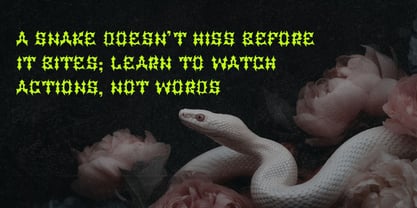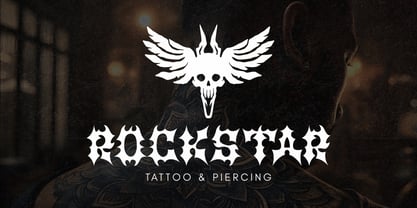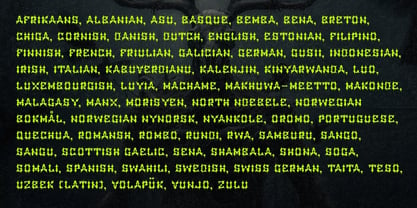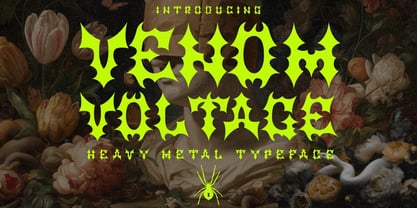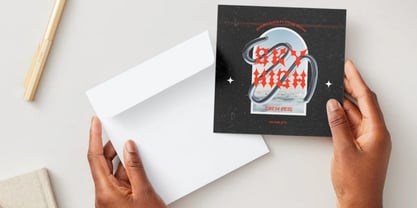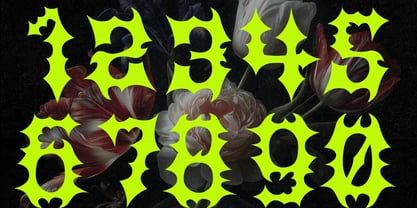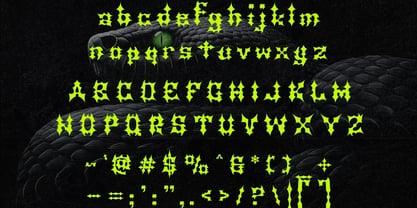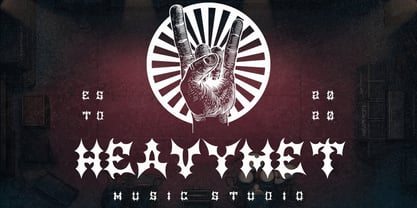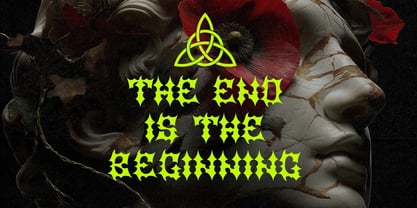
Venom Voltage
The Venom Voltage Font Family was designed by Igor Ovsyannykov and published by Hipfonts. Venom Voltage contains 1 styles. More about this family
Venom Voltage is a heavy metal–inspired display typeface forged in the void between sound and fury. Built with razor-sharp edges, electrified strokes, and violently twisted forms, this font radiates raw aggression and otherworldly energy. It doesn’t sit quietly on the page — it tears through it. Inspired by dripping ink, shattered steel, lightning fractures, and alien symbology, Venom Voltage embraces distortion as art. Its jagged letterforms feel alive — like they’re vibrating at full amp overload. Every glyph carries a chaotic rhythm, pushing legibility to the edge while delivering an unforgettable visual strike. This isn’t clean. This isn’t safe. This is controlled destruction.